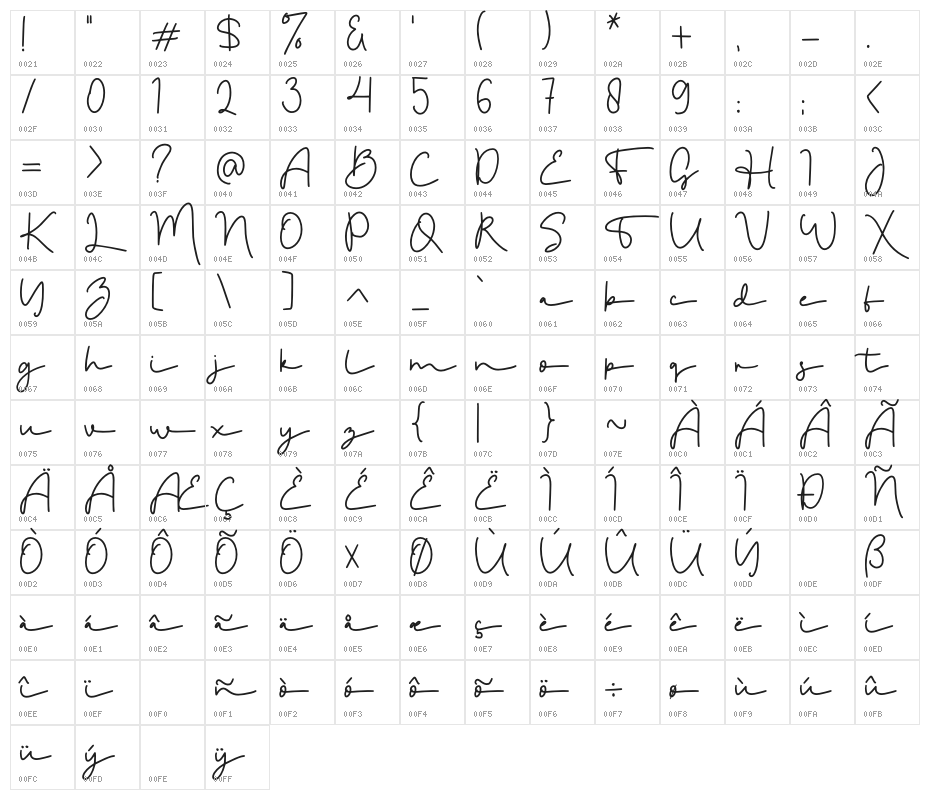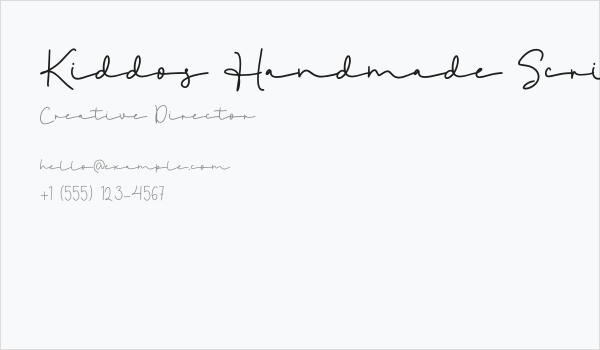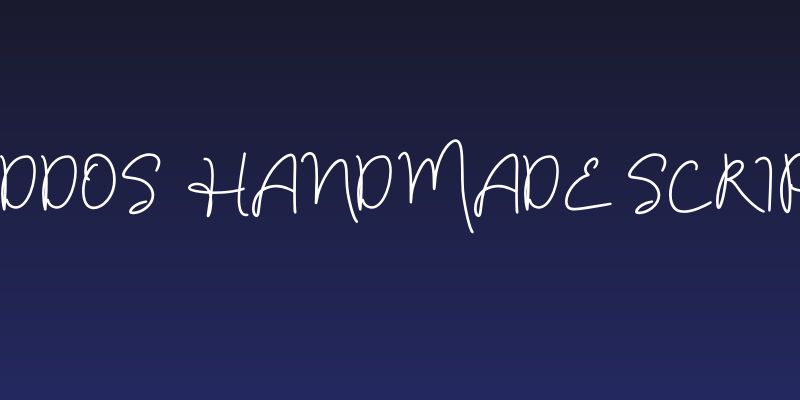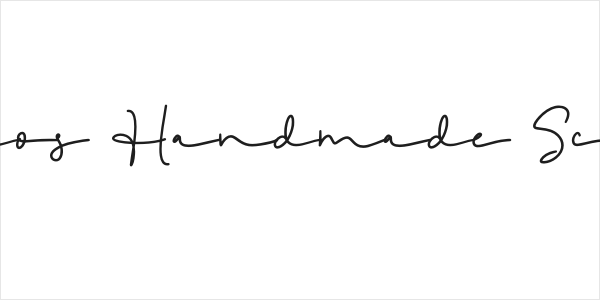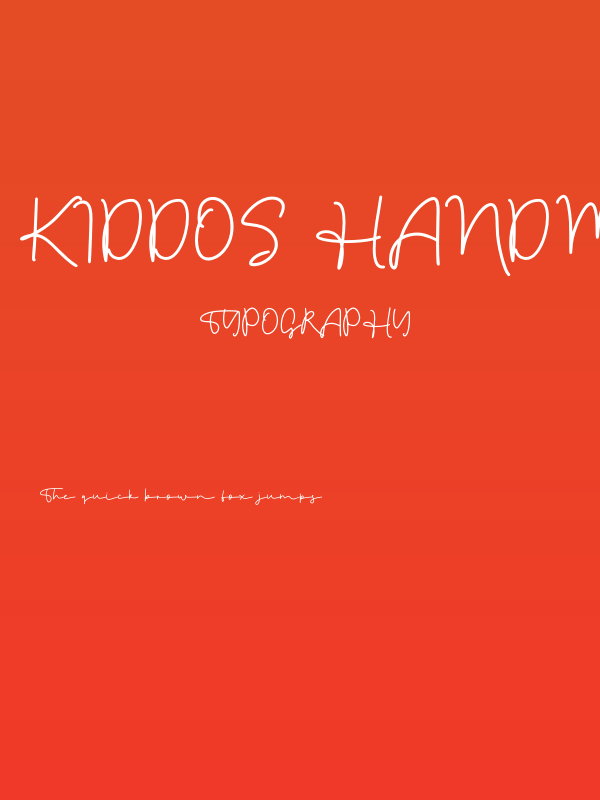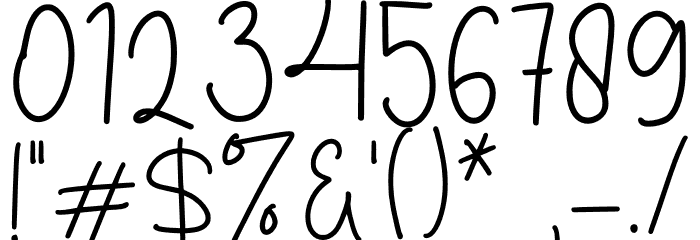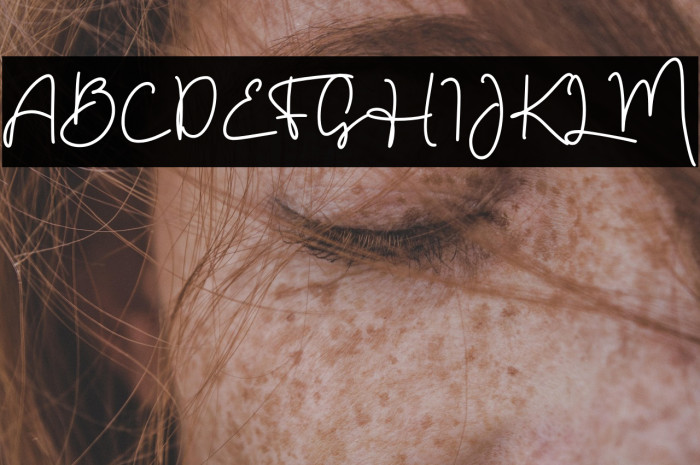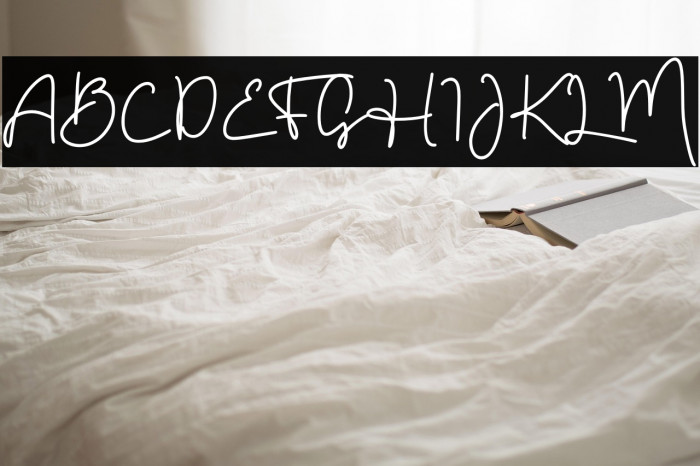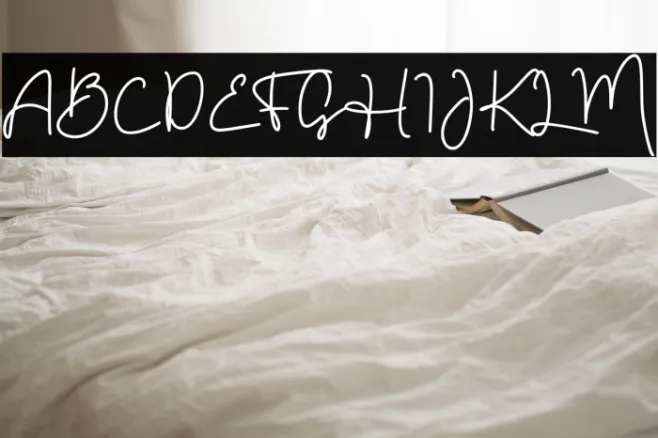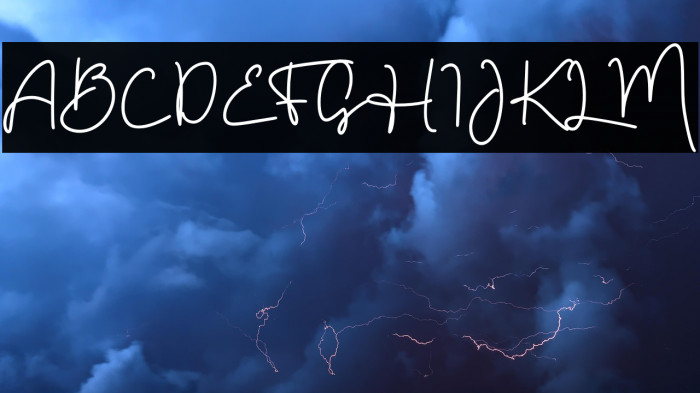
Kiddos Handmade Script Font
Kiddos Handmade Script Description
This font exudes a playful and whimsical charm, characterized by its handwritten script style. The letters are fluid and connected, giving a sense of movement and spontaneity. The uppercase letters are bold and slightly irregular, adding to the handmade feel. Lowercase letters maintain a consistent flow, with some letters extending below the baseline, enhancing the casual and relaxed appearance. The numerals are clear and easy to read, with a slight tilt that matches the overall style. Special characters are creatively designed, maintaining the playful aesthetic. This font is perfect for projects that require a personal touch, such as invitations, greeting cards, or children's book covers.
| Overall Style | Playful, Casual, Whimsical |
| Proposed Projects | Ideal for invitations, greeting cards, children's books, and playful branding. |